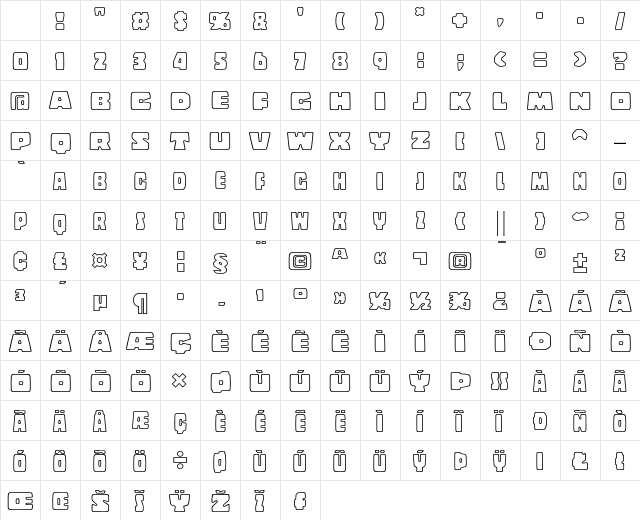
Copal is built around its visual character rather than neutral utility - its distinctive forms are designed to make an impression at display sizes.
Font Pairing: Pair with a clean neutral sans-serif for body copy to let Copal's character lead without overwhelming the composition.
Pro Tip: Use Copal exclusively at display sizes - it was designed to be seen, not read at length. Let a neutral companion handle body copy.